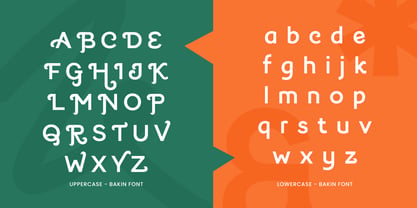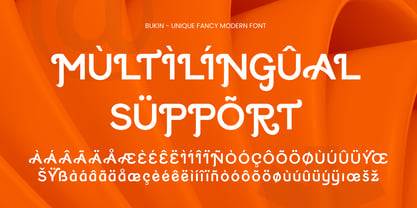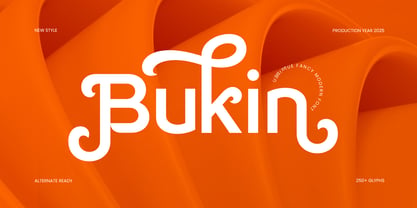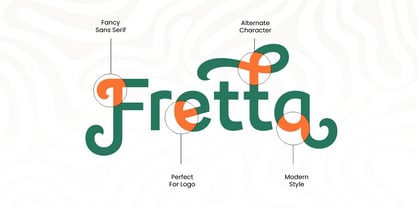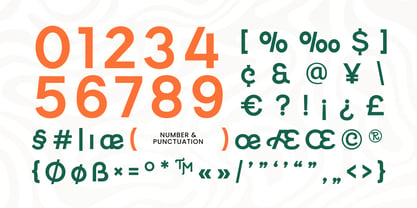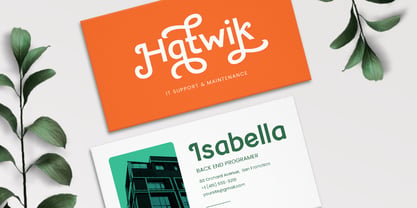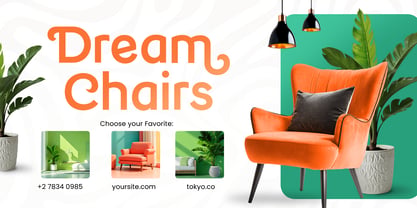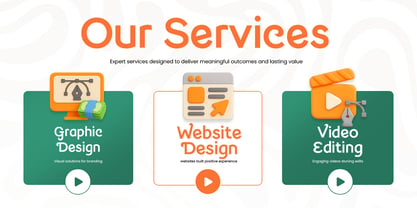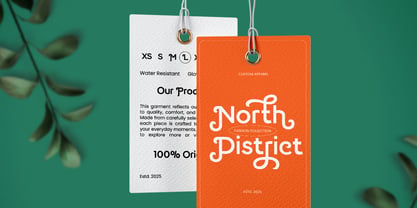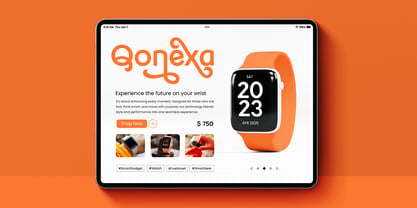
Bukin
von Sensatype Studio
Die Schriftfamilie Bukin wurde von Zamroni Hamzah entworfen und von Sensatype Studio veröffentlicht. Bukin enthält 1 Stile. Mehr über diese Familie
Bukin - Modern Fancy Branding Font Bukin is a modern fancy branding sans serif font designed for professionals who want to stand out. With its stylish shapes and clean execution, Bukin is a perfect fit for corporate branding, creative business visuals, and modern product designs. The character design blends geometric balance with a playful yet professional touch, allowing your brand to be expressive without losing clarity. Whether used in logos, packaging, tech branding, or presentations, Bukin communicates innovation and elegance. Use Bukin to elevate your projects with a font that bridges creative flair and corporate trust. Bukin – Modern Fancy Branding Sans Serif Font Features Stylish geometric sans serif design Ideal for logos, branding, and tech presentations Punctuation, numbers, and symbols included Uppercase and lowercase letters OpenType features for custom styling Multilingual support for: Afrikaans, Albanian, Asu, Basque, Bemba, Bena, Breton, Chiga, Cornish, Dutch, English, Estonian, Filipino, Finnish, Friulian, Galician, German, Gusii, Indonesian, Irish, Italian, Kabuverdianu, Kalenjin, Kinyarwanda, Luo, Luxembourgish, Luyia, Machame, Makhuwa-Meetto, Makonde, Malagasy, Manx, Morisyen, North Ndebele, Nyankole, Oromo, Portuguese, Quechua, Romansh, Rombo, Rundi, Rwa, Samburu, Sango, Sangu, Scottish Gaelic, Sena, Shambala, Shona, Soga, Somali, Spanish, Swahili, Swedish, Swiss, and more. Level up your brand presence with Bukin – where creativity meets professionalism. 🧩📊
Designer: Zamroni Hamzah
Foundry: Sensatype Studio